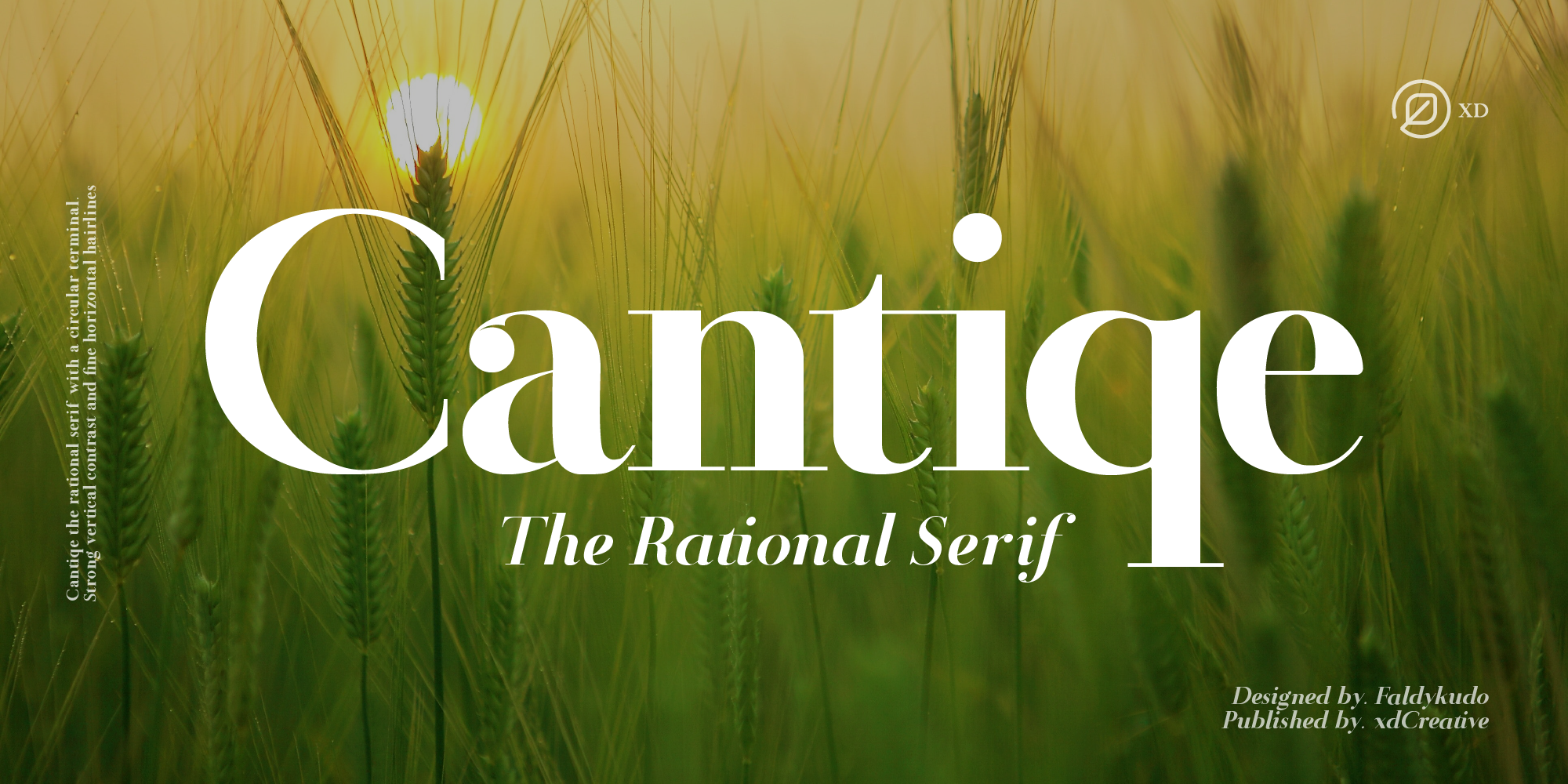
Cantiqe Font is perfect for antique shop branding, vintage boutique signage, classical music publications, historical document reproductions, heritage museum materials, traditional craft workshops, elegant estate sales, period drama productions, timeless wedding invitations, and sophisticated antiquarian projects that require vintage typography with classical charm and nostalgic elegance.
What makes Cantiqe Font so exciting is its masterful evocation of bygone elegance through carefully crafted letterforms that capture the refined beauty of classical typography from earlier centuries. This font features graceful, time-honored character shapes with subtle flourishes and traditional proportions that transport viewers to an era of handcrafted sophistication. The authentic vintage styling creates an immediate connection to historical periods while maintaining contemporary functionality for modern design applications.
The Cantiqe Font family includes multiple weights and styles: Light, Regular, Medium, Bold, Italic, and ornamental variants with decorative flourishes. Each weight maintains the signature antique character while offering comprehensive flexibility for vintage design applications and classical typographic arrangements.
Heritage designers consistently choose Cantiqe Font Free Download for projects requiring authentic vintage typography that embodies the spirit of classical craftsmanship and historical elegance. Whether you're creating antique business branding, developing museum exhibition materials, designing period-accurate publications, or crafting sophisticated heritage marketing campaigns, this font delivers exceptional authenticity and timeless appeal. The font's comprehensive character set includes classical ornaments and period-appropriate glyphs while ensuring optimal performance across both digital and print vintage applications, making it an essential tool for designers working on heritage projects that demand authentic, elegant, and historically inspired typography solutions with classical sophistication and antique charm.